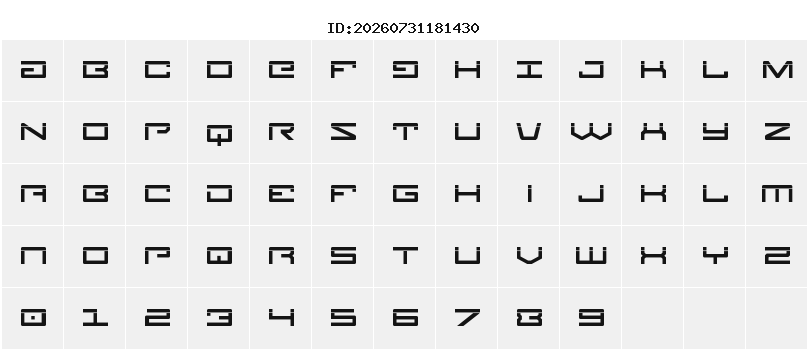
• Font Name: Legion Laser
Legion Laser.ttf is a modern, elegant sans-serif font designed for ultimate readability and visual harmony. Perfect for branding, headlines, web design, and print materials.